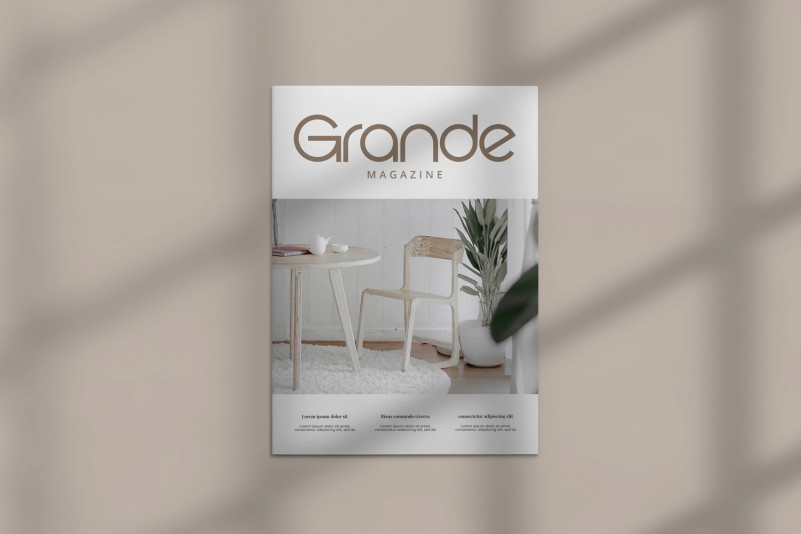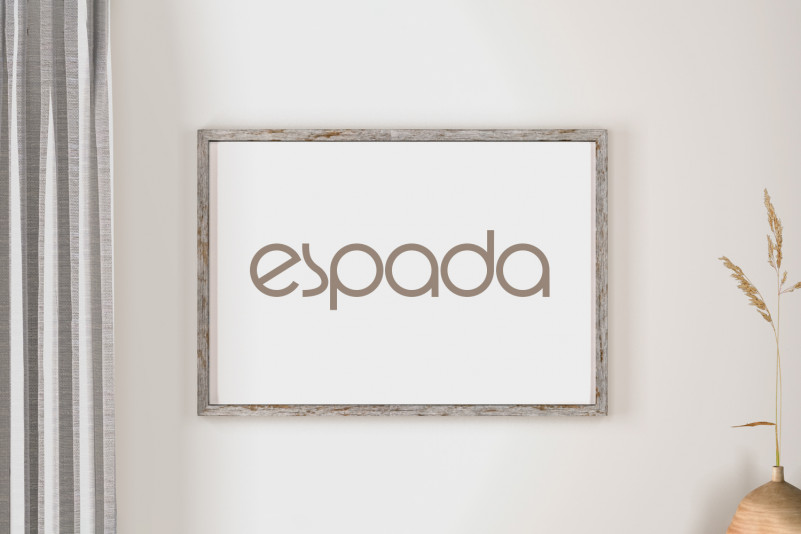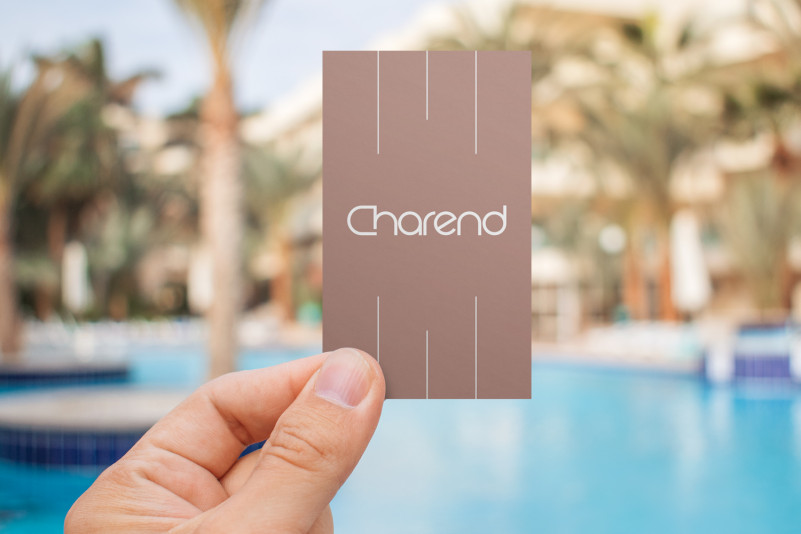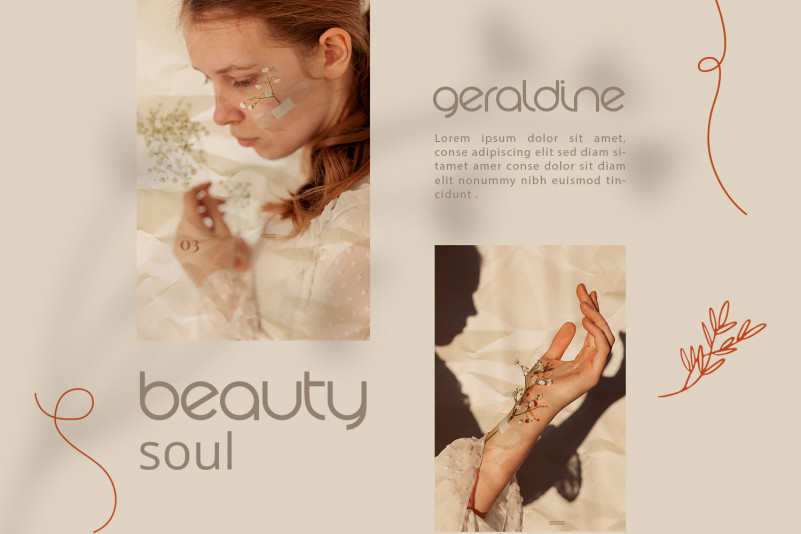
Beacon Display Font
Beacon Display Font is a modern display font with authentic and casual feels. It will be perfectly used for Branding, Logo Design, Lettering, Logotype, Clothing, Poster, magazine, packaging, posters, shopping bags, t-shirts, book covers, photography, special events and other design project.